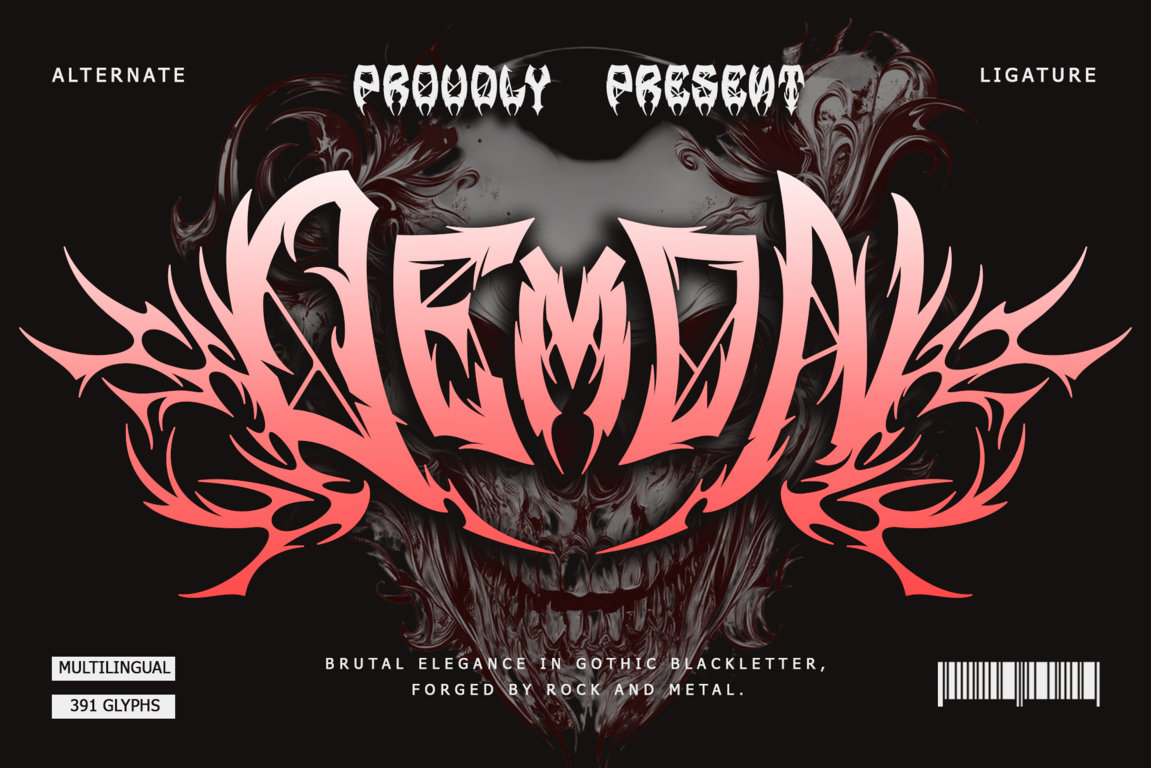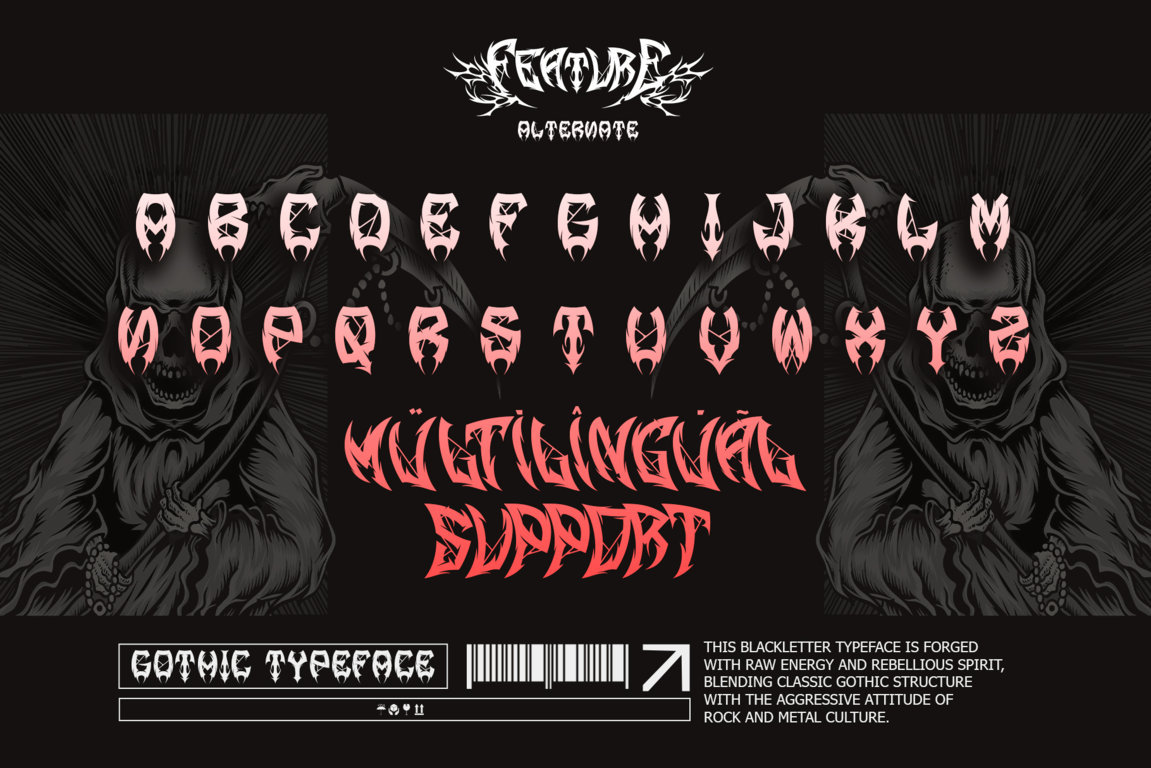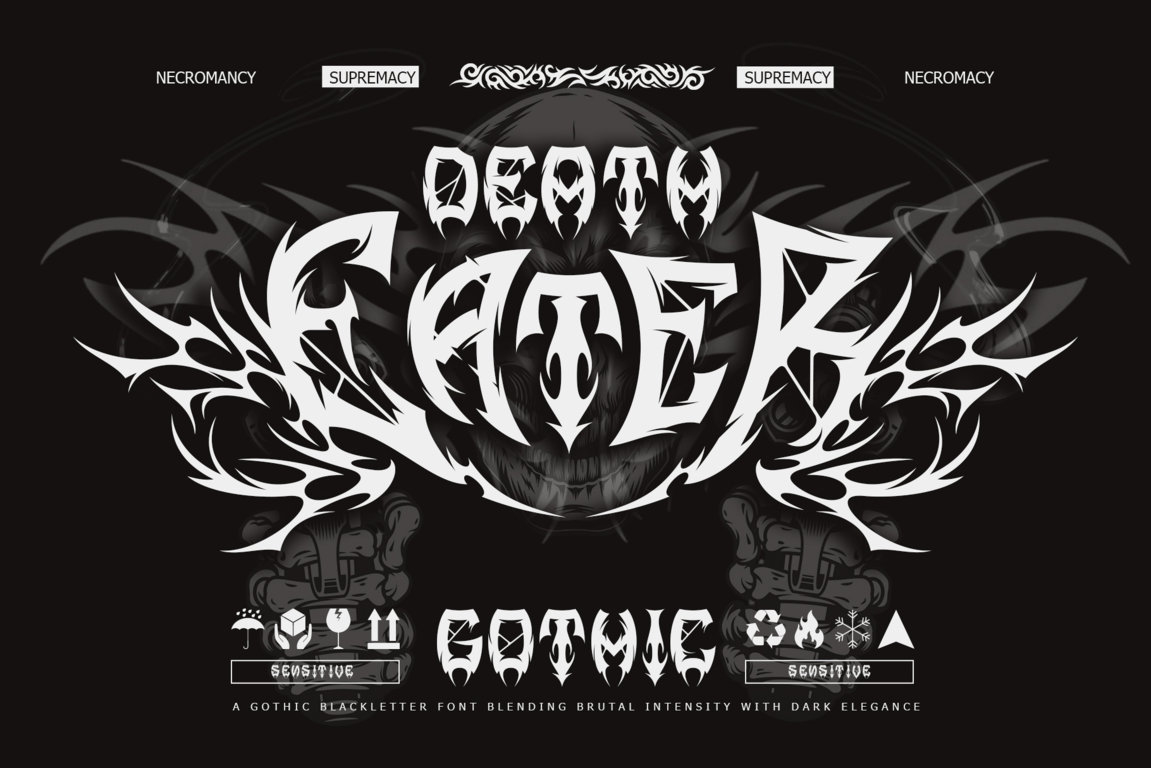
Demon Crown – Dark Gothic Blackletter Font
Enter the dominion of darkness with Demon Crown, an extreme gothic blackletter font forged from ritual, power, and unholy authority. Defined by razor-sharp strokes, aggressive curves, and commanding symmetry, Demon Crown delivers a dominant visual presence that feels carved in iron rather than written in ink. Inspired by occult symbolism, cathedral shadows, and the raw intensity of metal culture, this font transforms typography into a force of domination and chaos.
Built for high-impact visuals, Demon Crown is ideal for band logos, album covers, dark fantasy titles, game branding, tattoo lettering, posters, and cinematic artwork. Every letter radiates brutality and reverence, blending gothic tradition with modern intensity to create typography that commands attention. Fully PUA encoded and packed with OpenType features, Demon Crown gives you complete creative control to craft dark, powerful, and unforgettable visual identities.
• Extreme gothic blackletter display style
• Uppercase letters
• Alternates, swashes, titling characters & ligatures
• Numerals & punctuation
• Multilingual support: ä ö ü Ä Ö Ü ß ¿ ¡